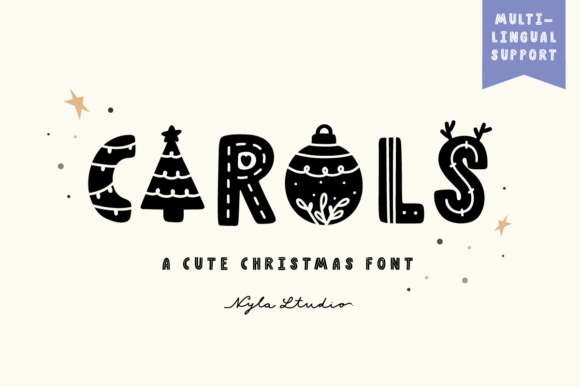
The Magic of Carols Font: A Designer’s New Best Friend
It’s the most wonderful time of the year – and I’m not just talking about the holiday season! As a designer, I’m always on the lookout for the perfect font to make my projects shine. Recently, I found myself working on a Christmas-themed design project, struggling to find a font that captured the playful, festive spirit I was going for. That’s when I stumbled upon Carols Font – and let me tell you, it’s been a game-changer! 🎉
So, what makes Carols Font so special? Here are a few things that have won me over:
• ✨ Cute and playful: Carols Font is perfect for creating fun, festive designs that are sure to put a smile on anyone’s face.
• ✅ Versatile: Whether you’re working on a Christmas invitation, a holiday-themed mug, or a playful poster, this font fits the bill.
• 🎉 Easy to read: Despite its decorative nature, Carols Font is surprisingly easy to read – even at smaller sizes.
Of course, no font is perfect, and Carols Font has a few small quirks to keep in mind:
• 🤔 Limited use outside of holiday themes: Let’s face it – Carols Font is designed specifically for holiday-themed designs. While you could use it for other projects, it might not be the best fit.
• ⚠️ Some glyphs may require manual adjustment: As with any font, you may need to tweak certain glyphs to get the perfect look – but trust me, it’s worth it!
The Story Behind Carols Font
Carols Font was designed with one goal in mind: to create a festive, playful font that captures the magic of the holiday season. Inspired by vintage Christmas decorations and classic holiday fonts, Carols Font is the perfect blend of fun and sophistication.
Is Carols Font suitable for body text? While Carols Font is easy to read, it’s best suited for headlines, titles, and short paragraphs. For longer body text, you might want to choose a more traditional font.